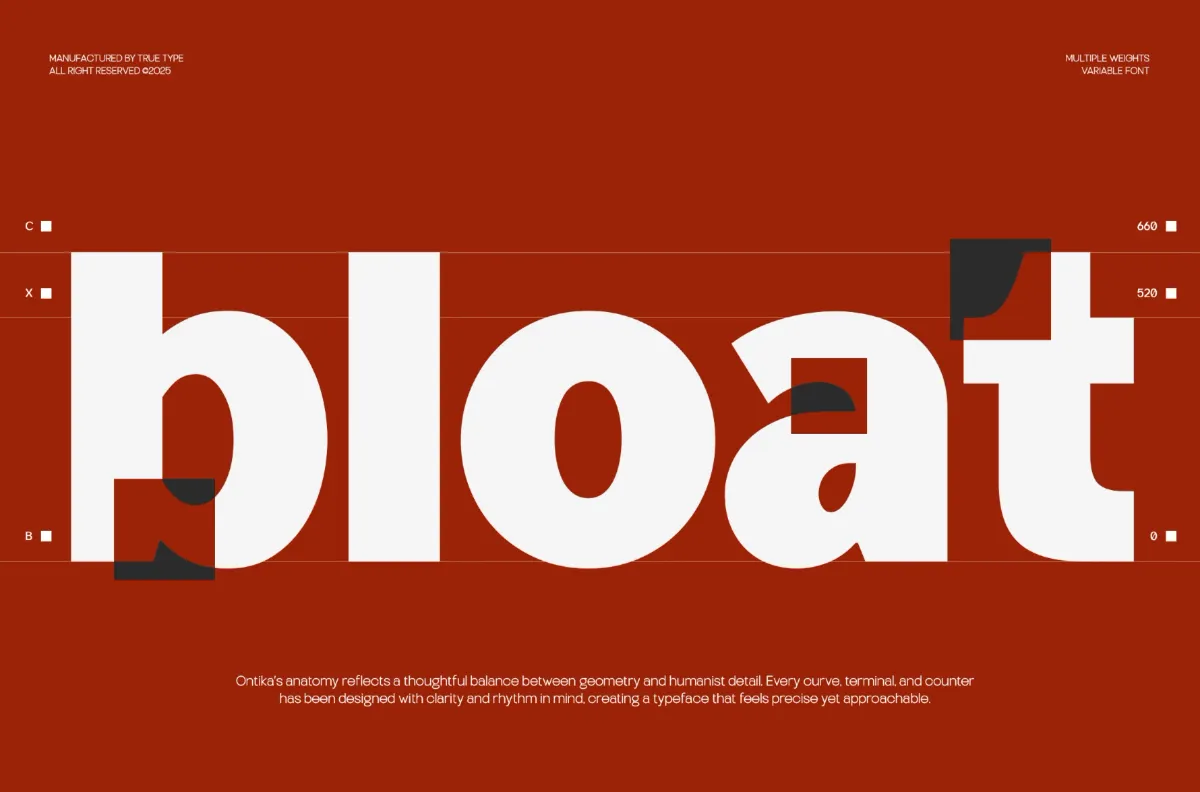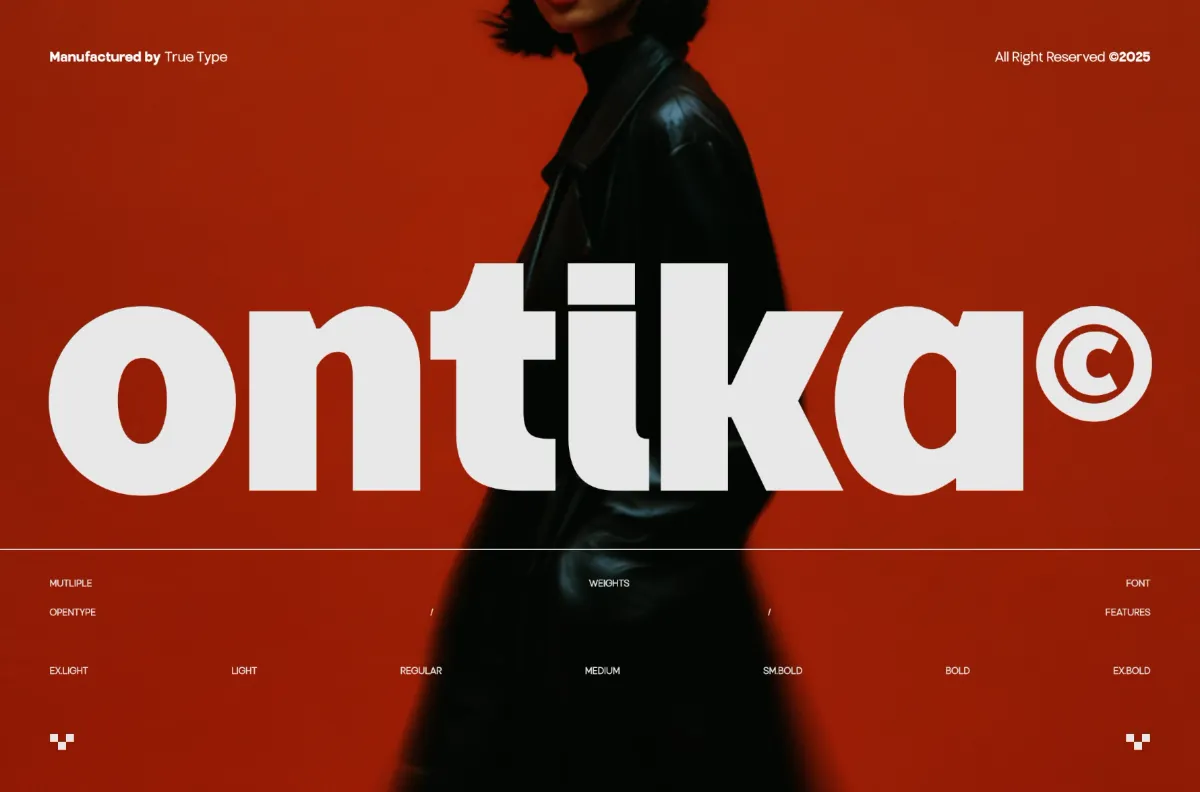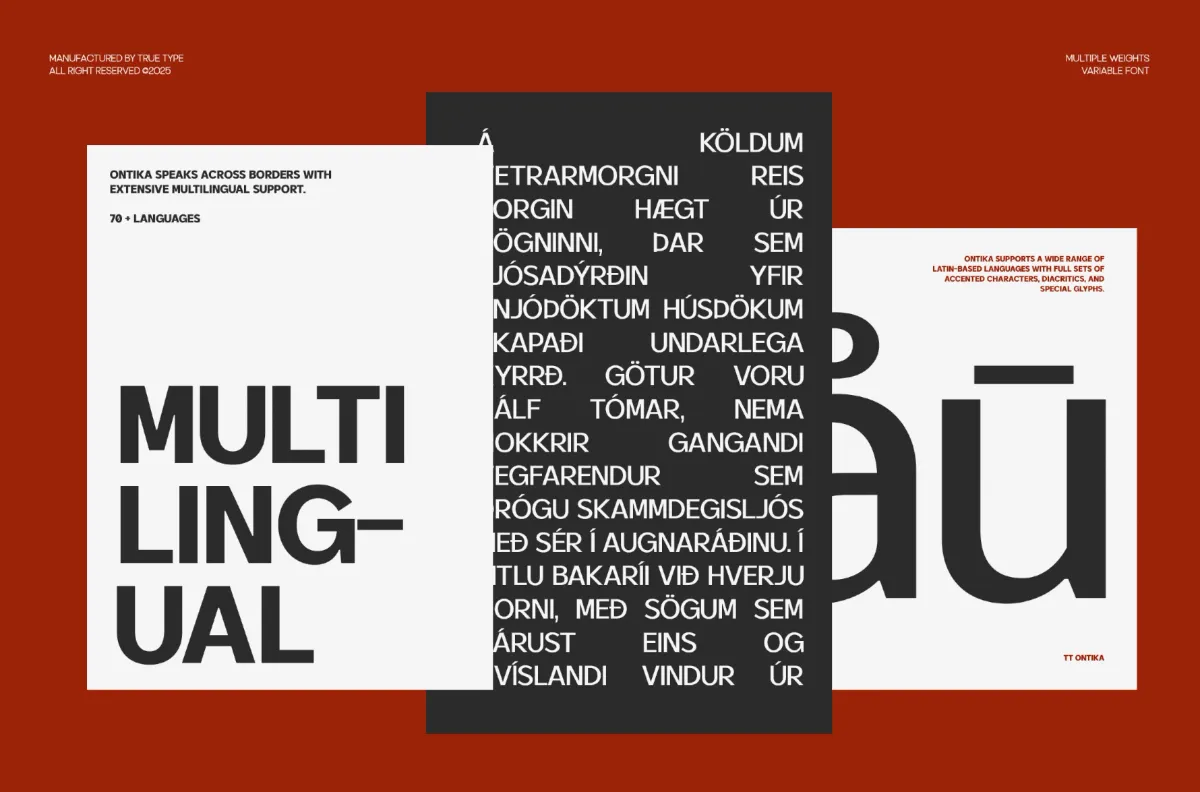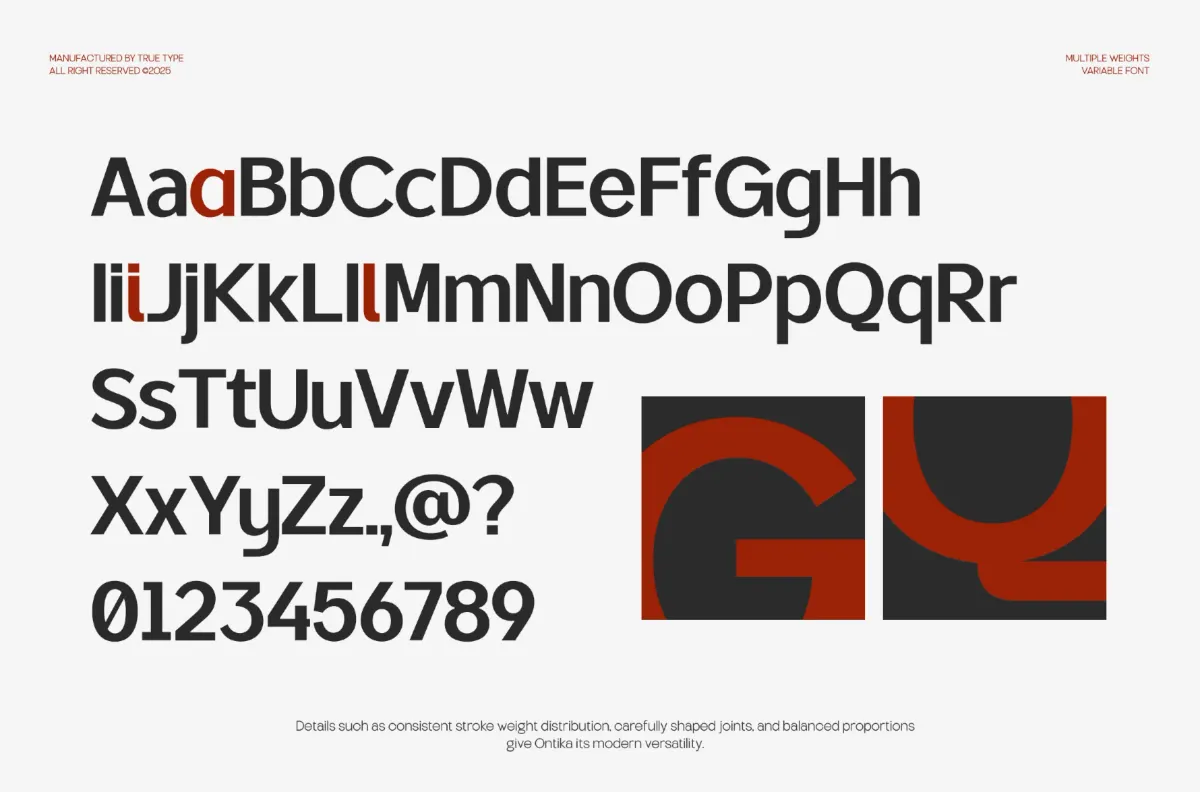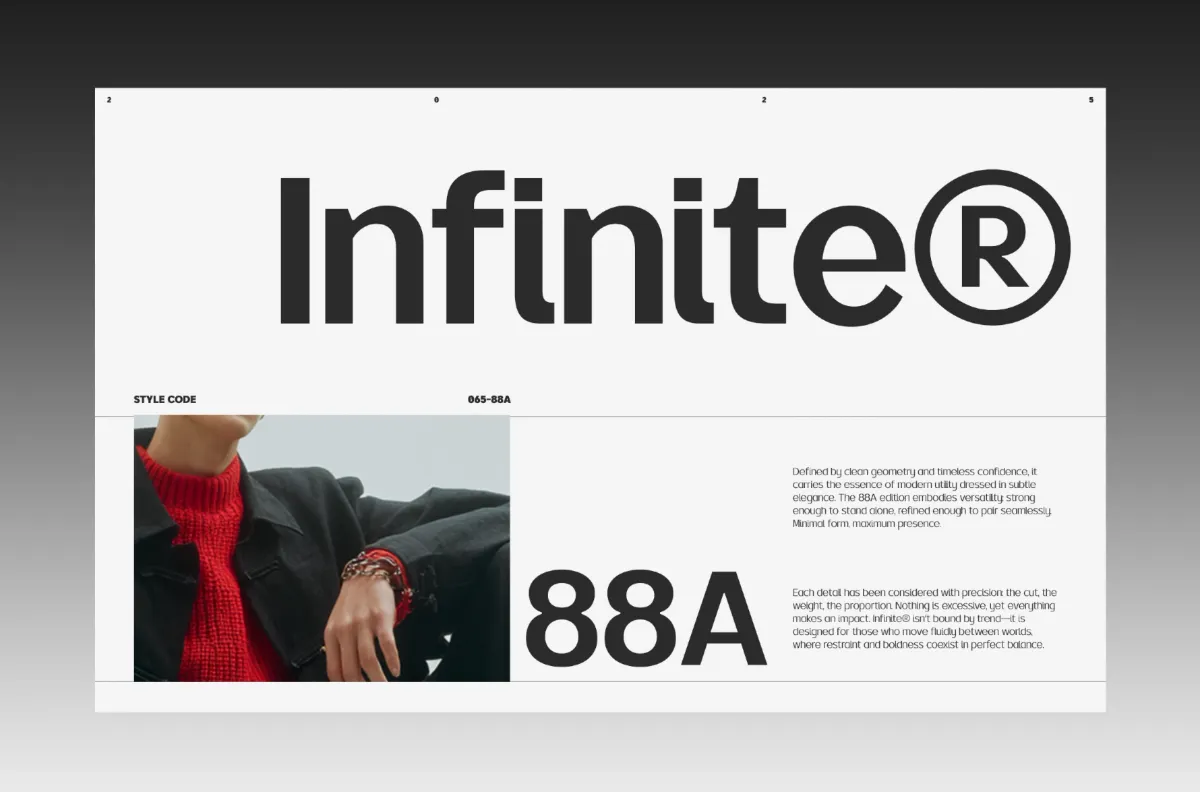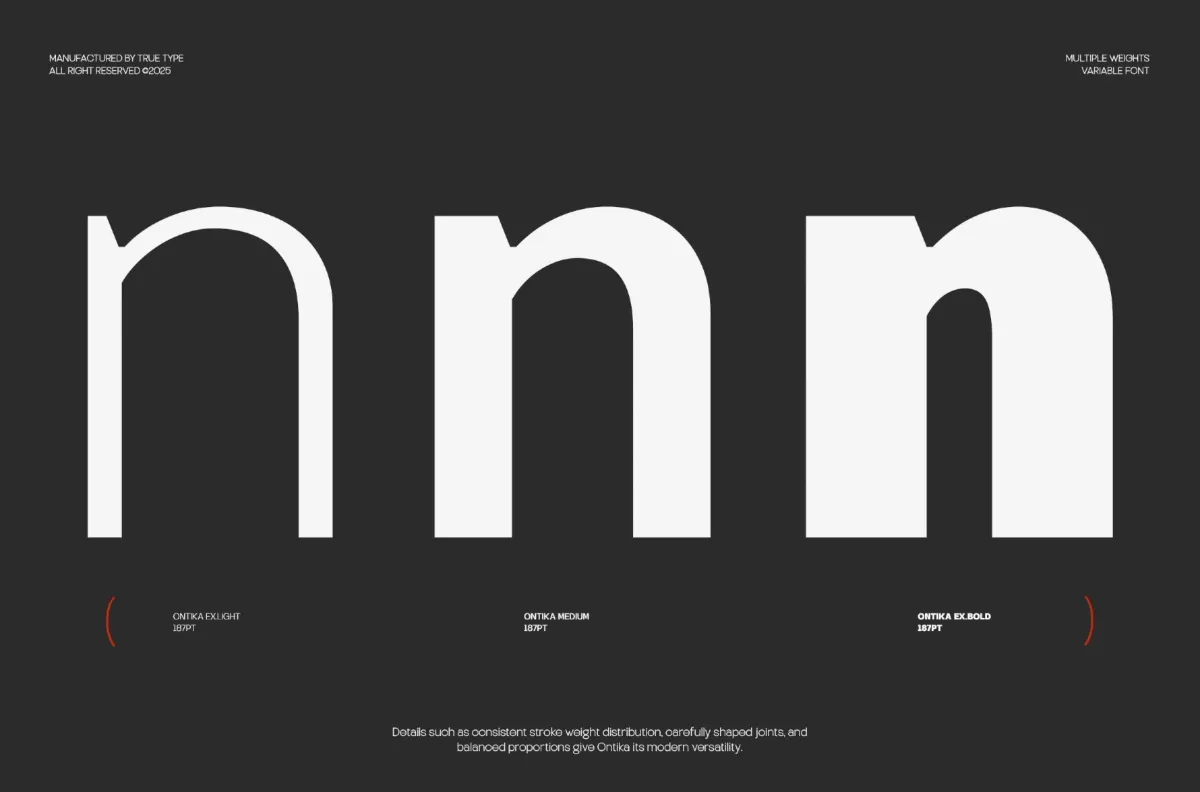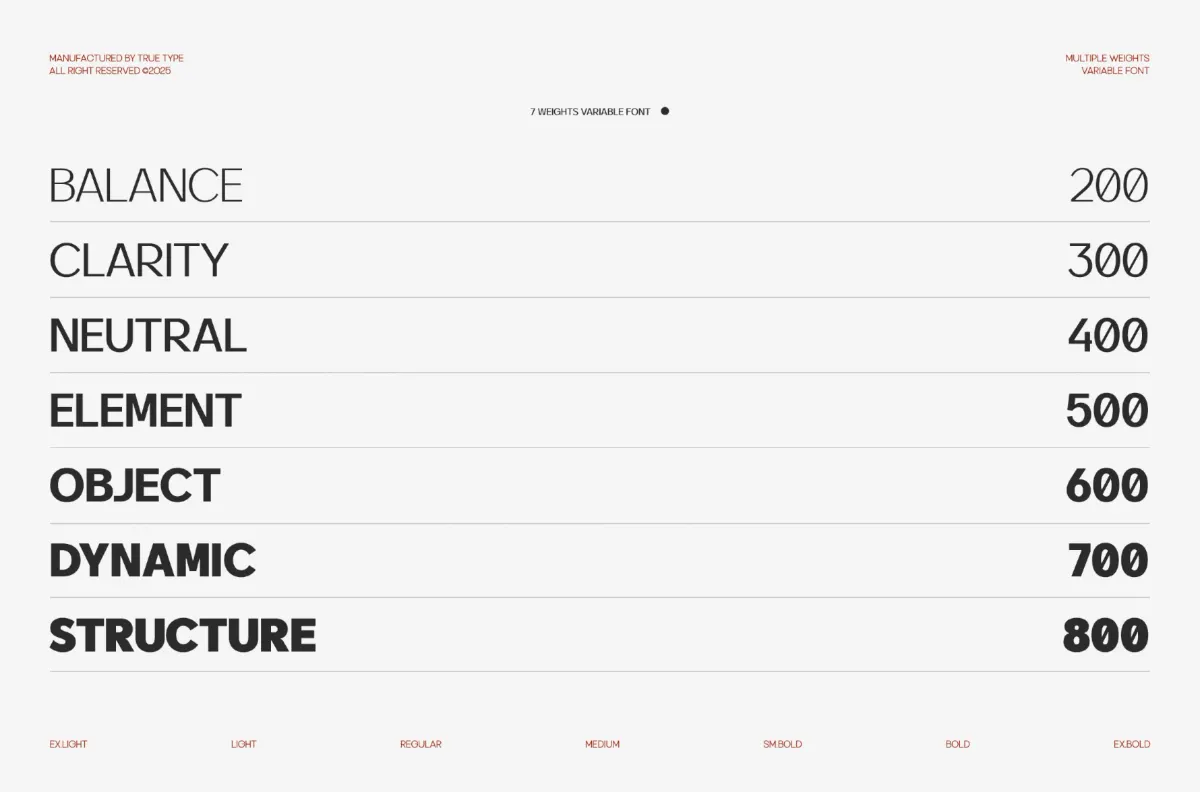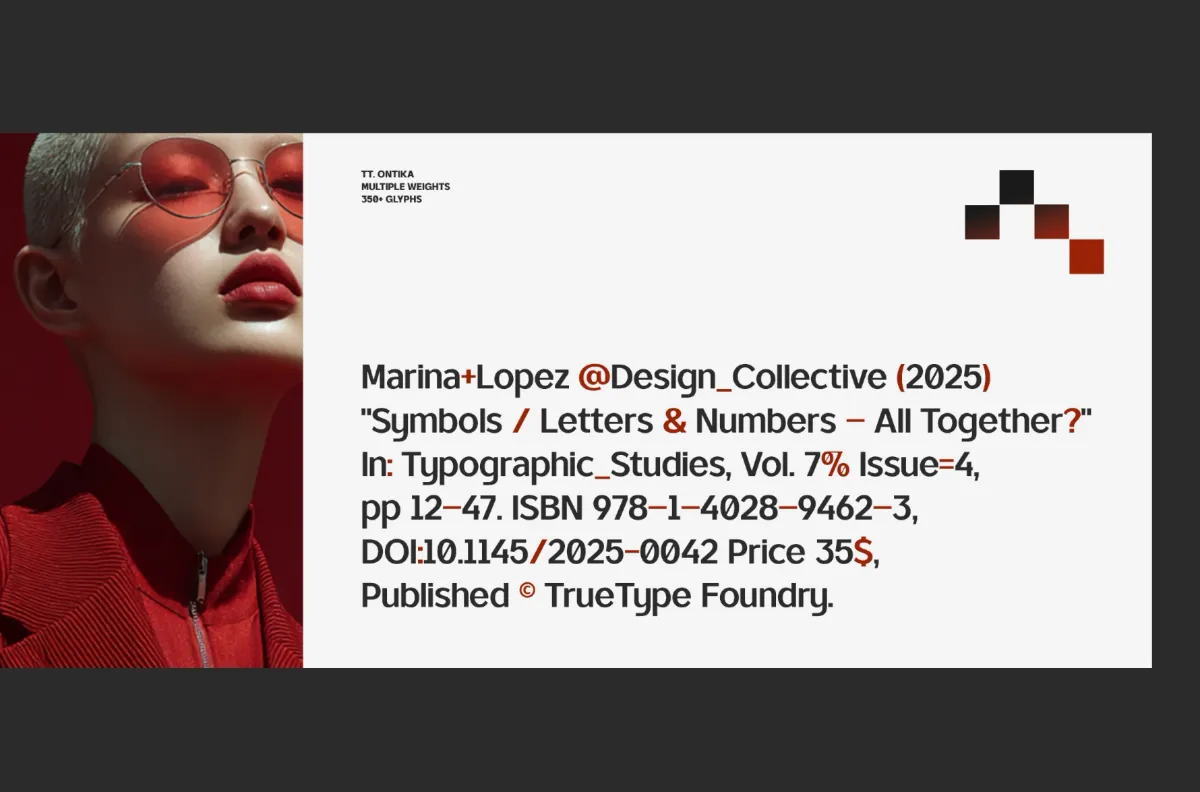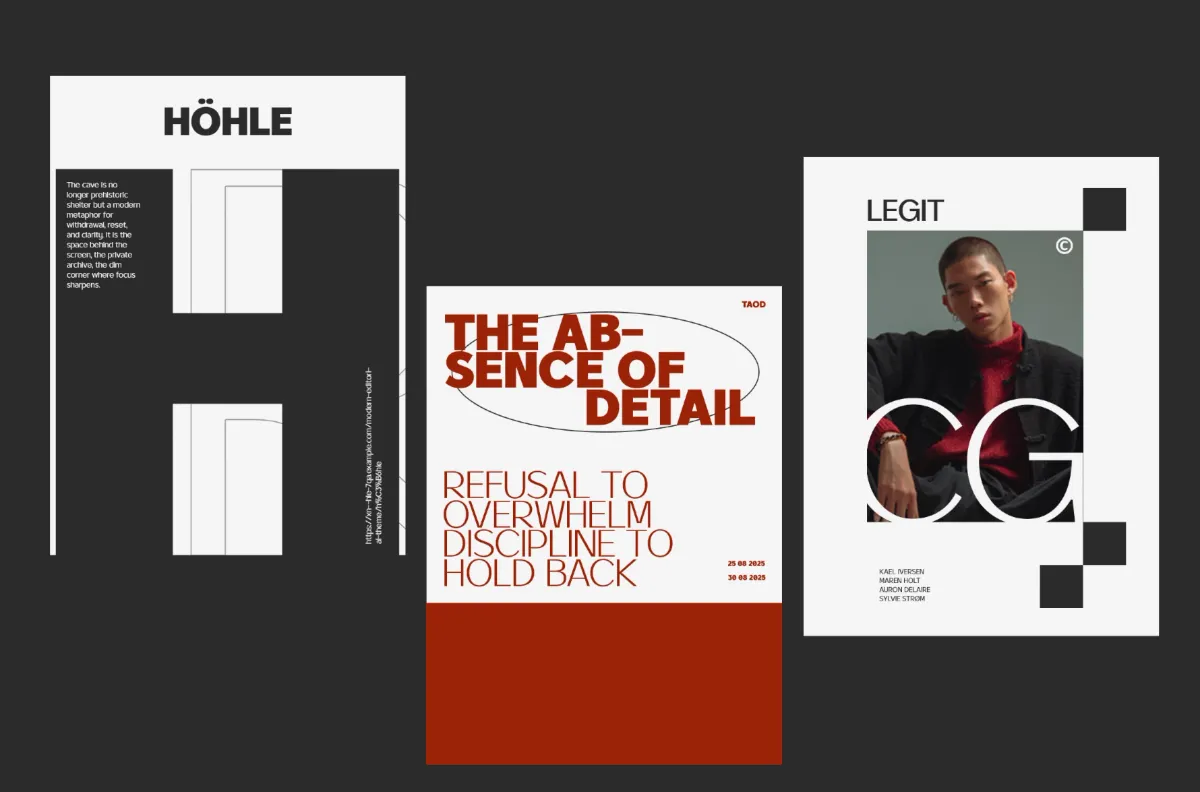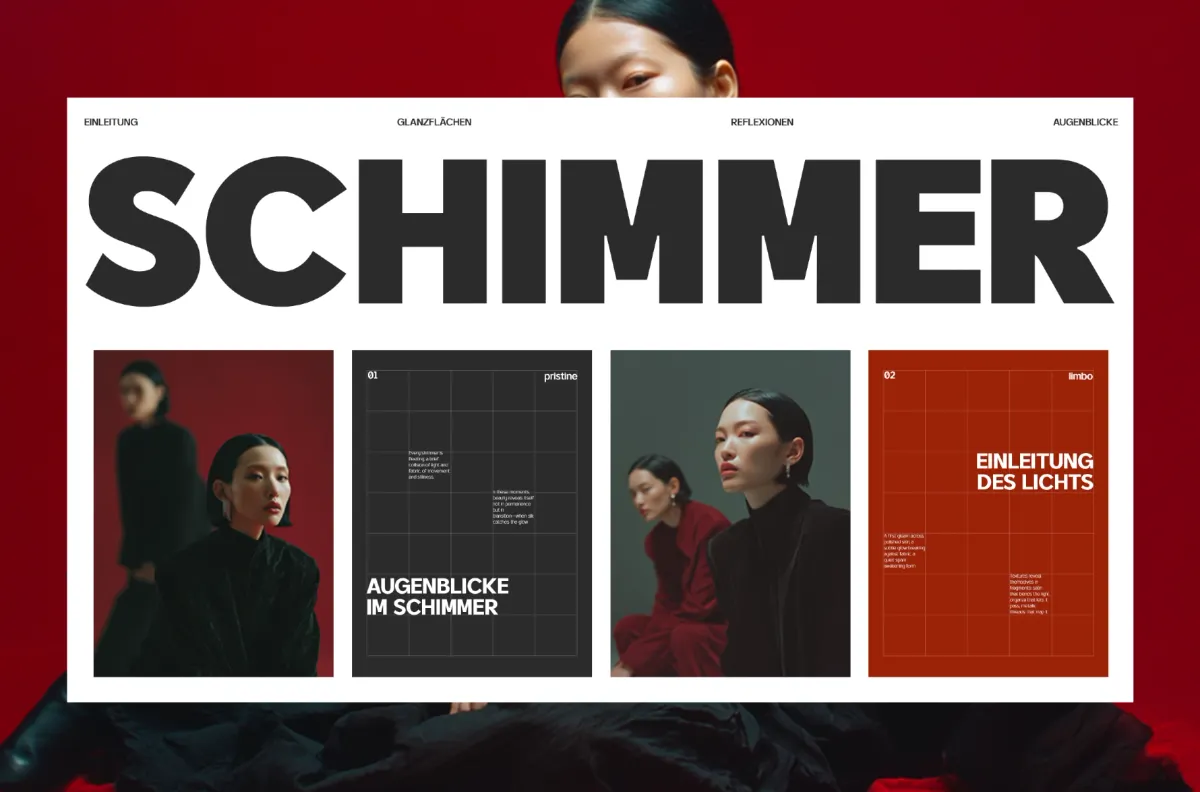
TRT Ontika - Variable Sans Serif Font
TRT Ontika reads like the leather-jacket portrait it ships with — matte, deliberate, a little cool. The construction stays geometric at the core (round bowls, even stroke weight), but single-storey quirks and softened joints keep it from feeling clinical. Seven weights carry that balance from a light editorial voice through a dense display Extra Bold, all built on the same skeleton so nothing shifts proportion as it gets heavier. Use it for visual identities and wordmarks, magazine headlines and pull quotes, UI headings and app branding, product labels and retail typography, and pitch decks or campaign graphics that need one consistent voice across weights.
• Uppercase & Lowercase;
• Numerals, punctuation & symbols;
• Ligatures, stylistic alternates, fractions, ordinals, superscripts, tabular & proportional figures;